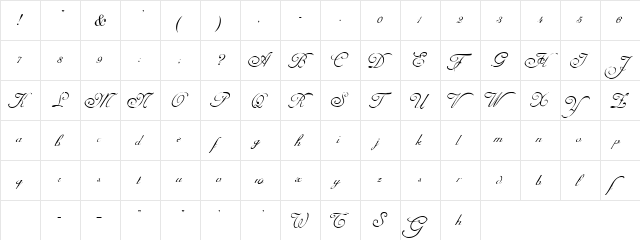
AdineKirnberg Script
| Style | Script |
Design Context for AdineKirnberg Typeface
AdineKirnberg brings a calligraphic fluidity to the page — its connecting strokes and expressive curves give it an unmistakably human quality.